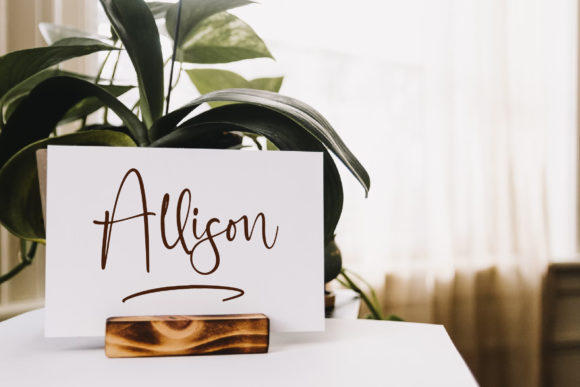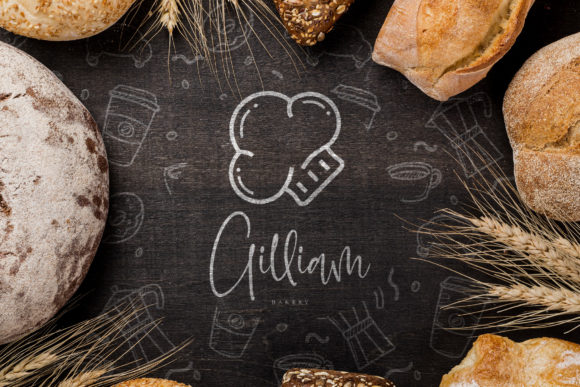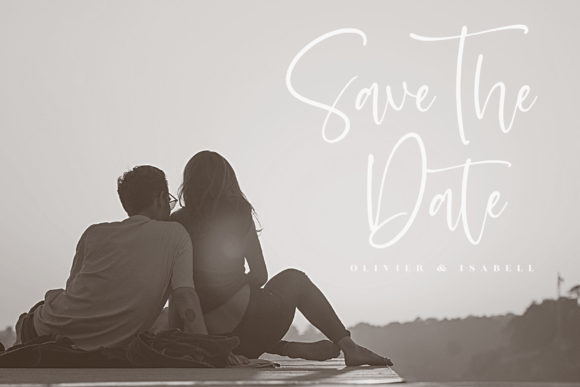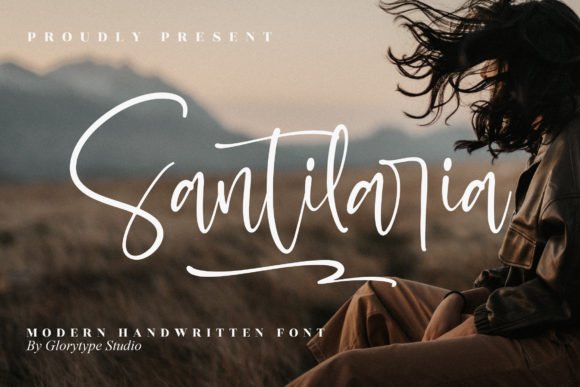
Introduction to Santilaria Font
Santilaria is a lovely and timeless handwritten font.
Why Choose Santilaria Font?
Santilaria Font offers exceptional quality and versatility, making it a valuable addition to your design toolkit. Whether you’re creating for personal projects or commercial use, Santilaria Font delivers professional results.